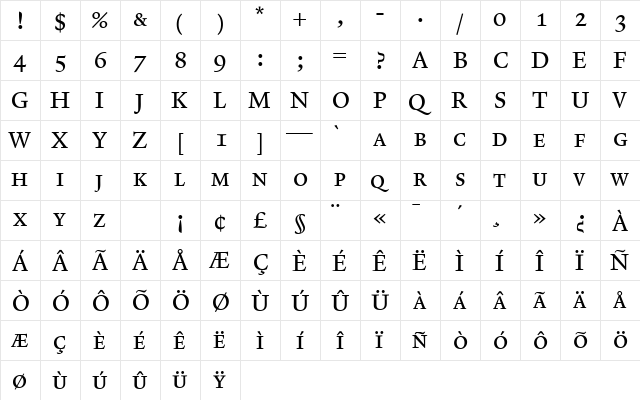
Lexicon No1 Roman A Exp
Design Context for Lexicon No1 Typeface
Lexicon No1 offers clean, dependable letterforms without strong stylistic allegiance, making it a practical choice for designers who need flexibility.